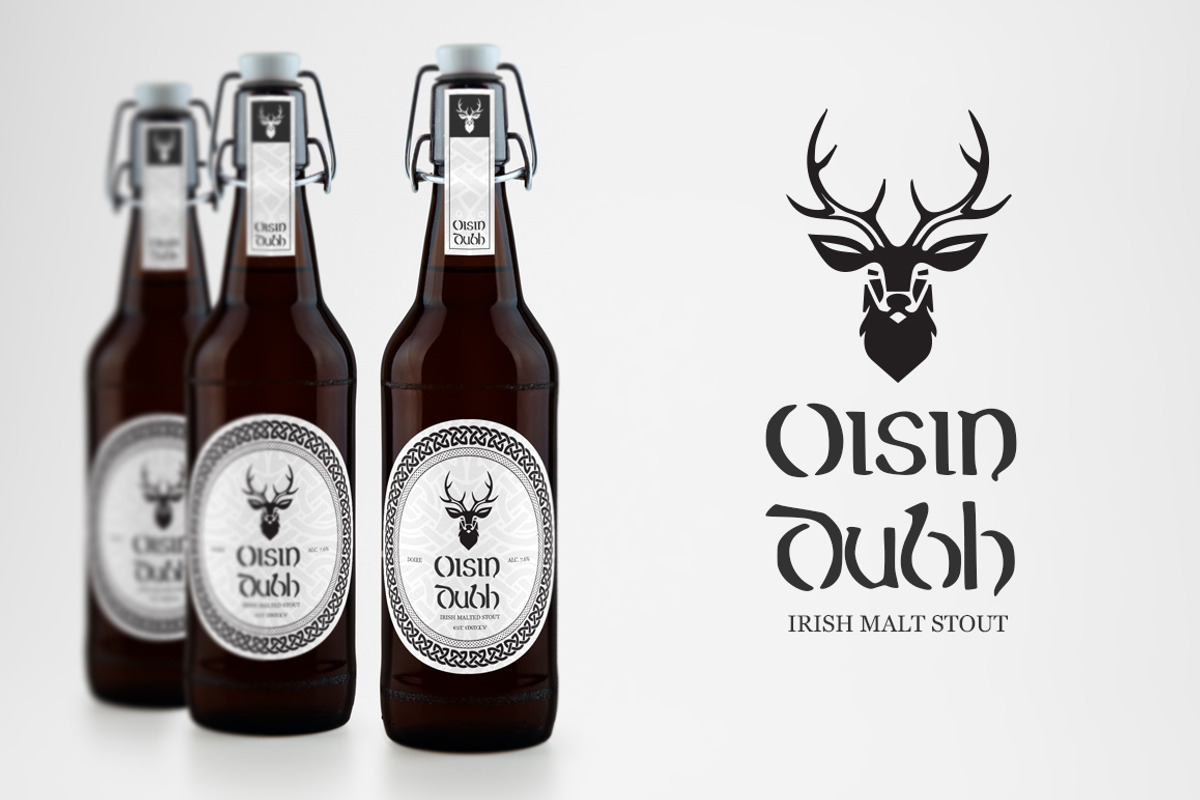
Erin - A Mystical Celtic Typeface
Erin - A Mystical Celtic Typeface by Twinbrush is a font selected for branding, posters, packaging, typography.
Why Erin - A Mystical Celtic Typeface is worth a look
Erin - A Mystical Celtic Typeface by Twinbrush fits naturally into Branding, posters, packaging, typography.